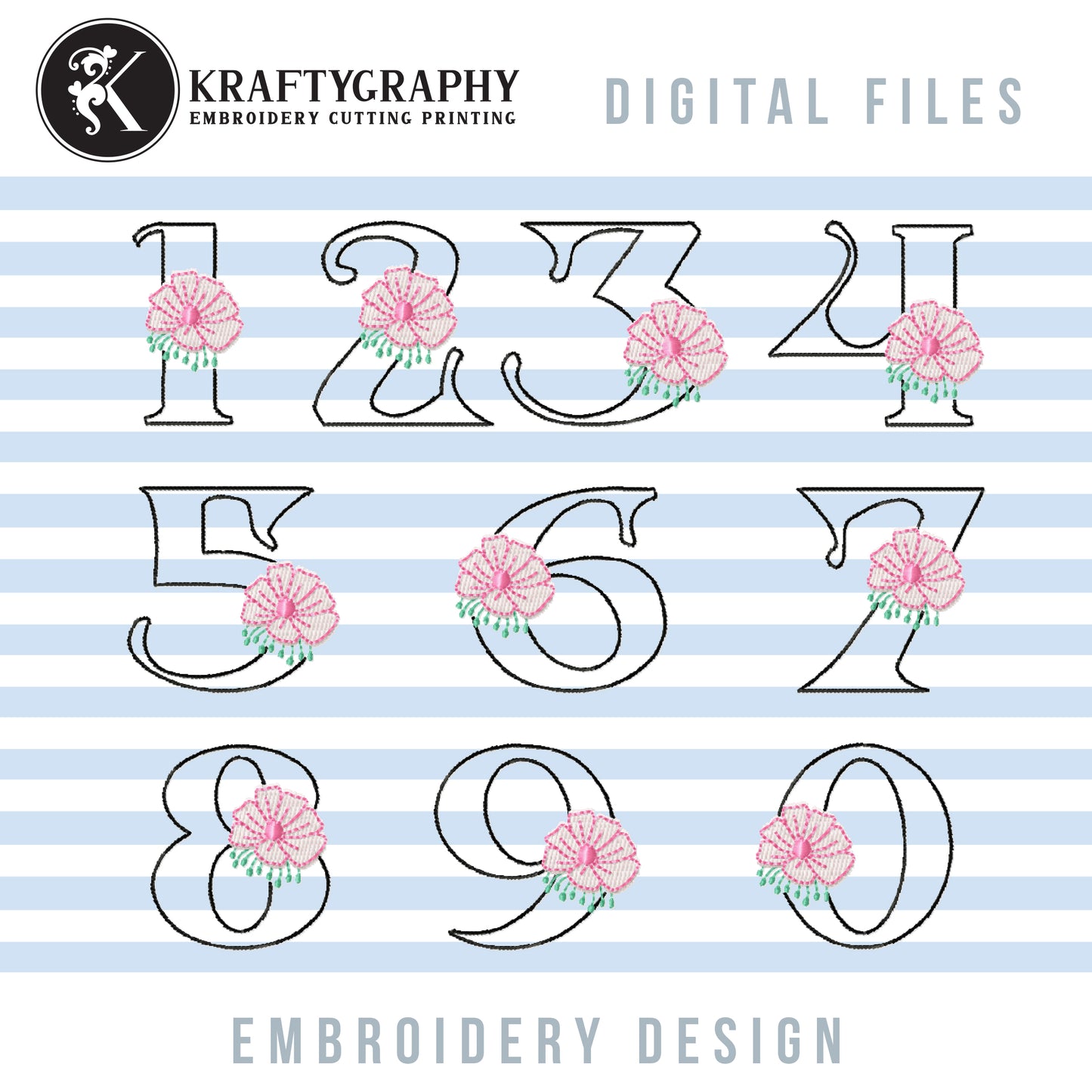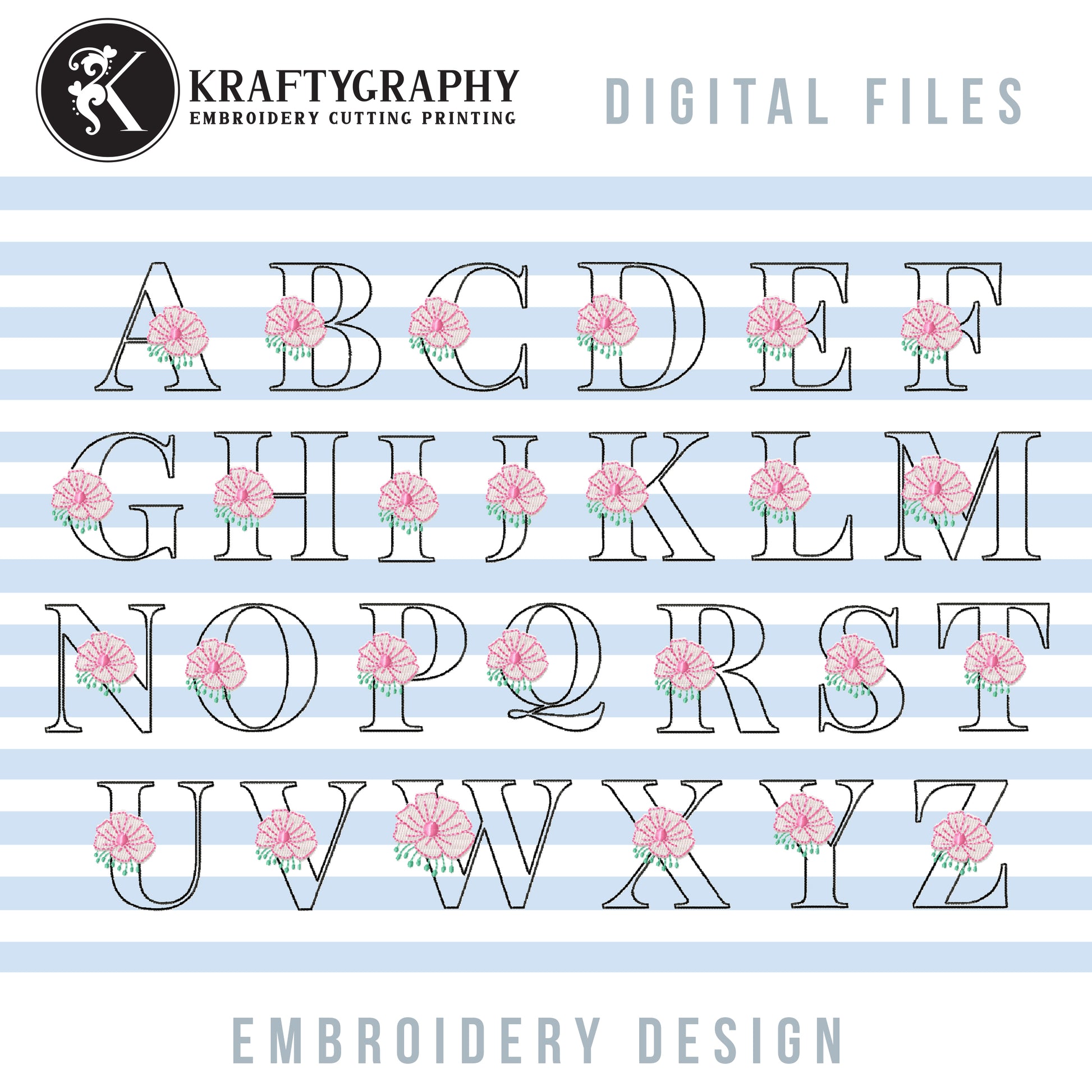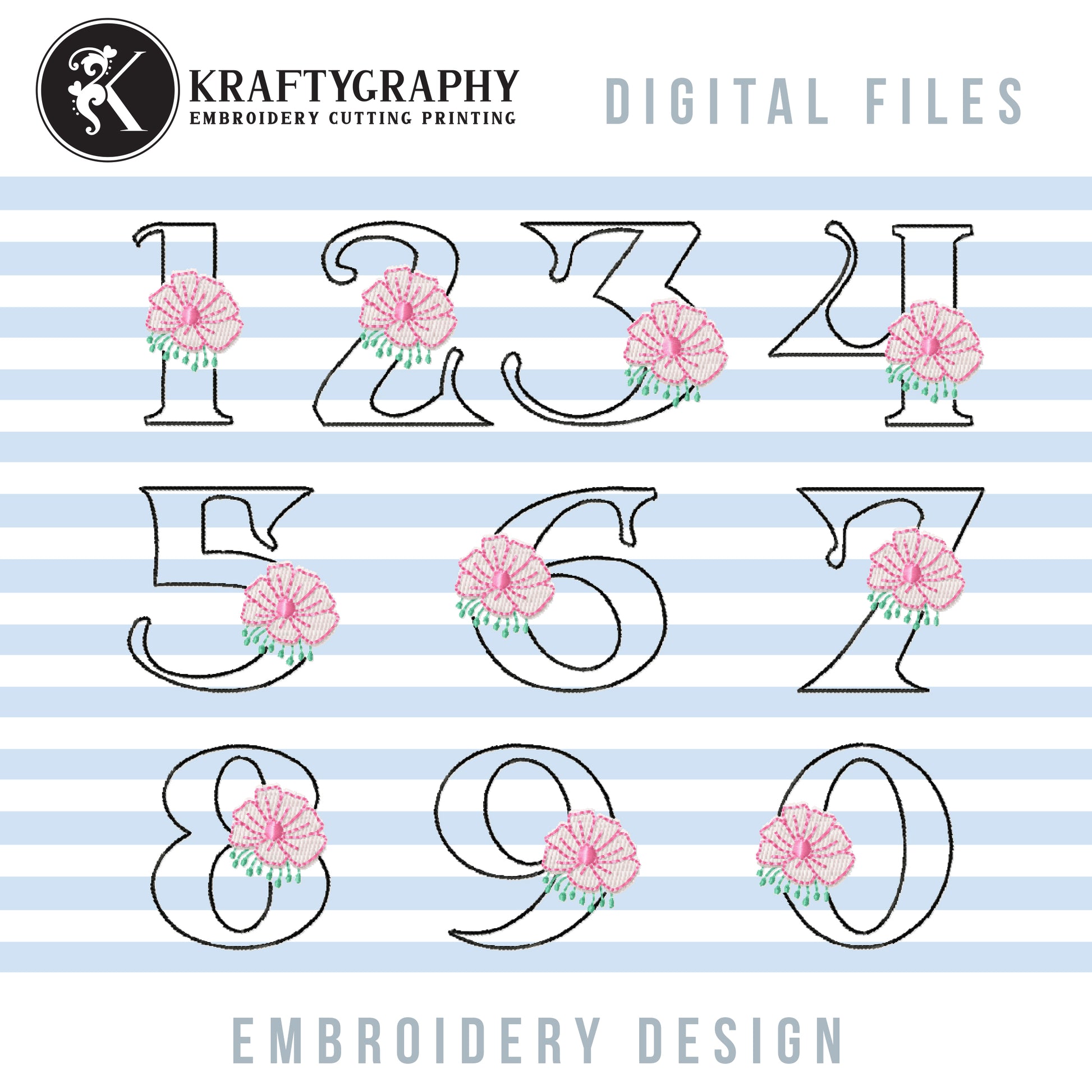
Small Elegant Embroidery Font for Embroidery Machine, Embroidery Monogram Font, Modern Embroidery Alphabet
Looking for an elegant floral monogram embroidery font for your machine embroidery projects? Check out this fancy alphabet embroidery pattern. Great to use on baby clothing, bibs, sweatshirts, patches, felties or anything else you want to apply on.